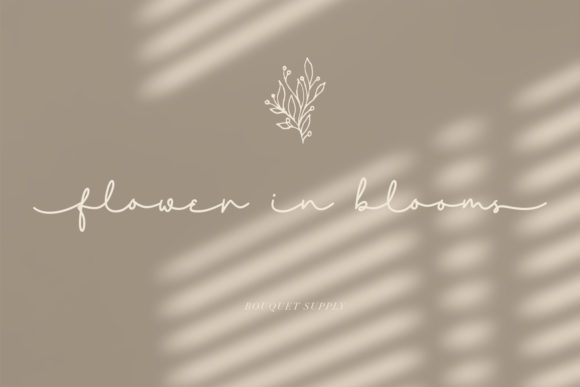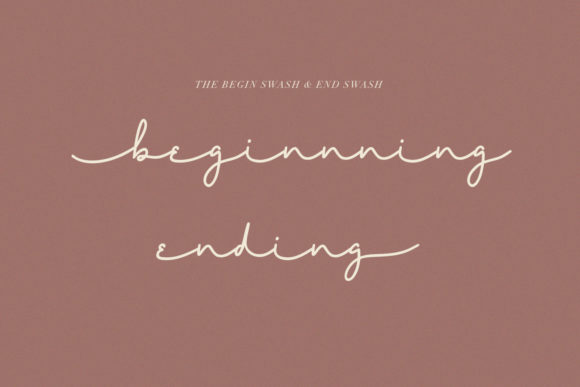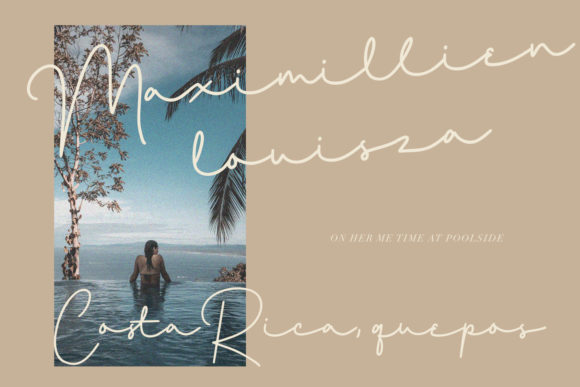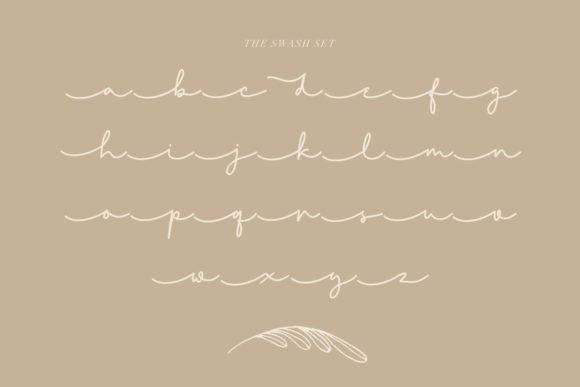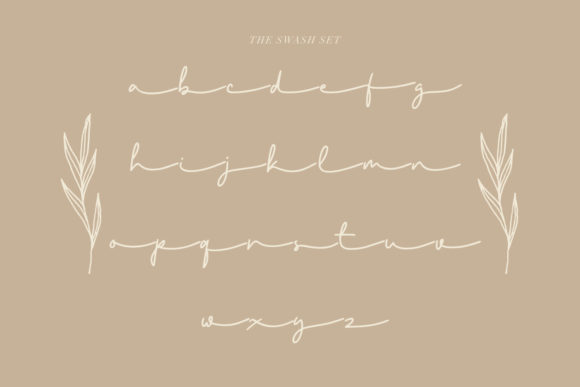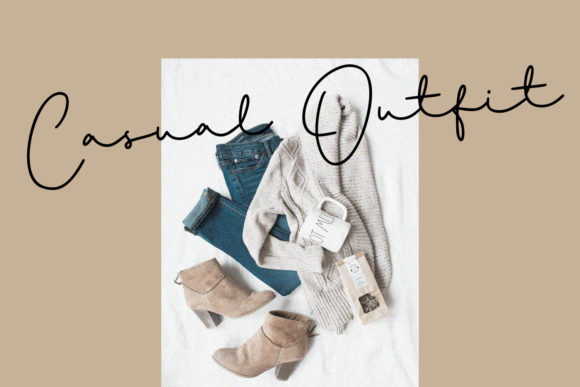
Introduction to Mirabille Font
As a designer, there’s nothing quite like the thrill of discovering a new font that perfectly captures the essence of your creative vision. For me, that moment came when I stumbled upon the exquisite Mirabille Font. Its delicate, flowing script is nothing short of enchanting, making it an instant favorite for any design project that requires a touch of elegance.
Whether you’re crafting wedding invitations, thank you cards, or logos, the Mirabille Font is a valuable resource that will elevate your design to new heights. With its high-quality design and versatility, it’s no wonder why designers from all over the world are flocking to this free download. From transparent backgrounds to custom designs, the Mirabille Font is the perfect companion for any creative project.
As a design resource, the Mirabille Font offers endless possibilities for designers looking to add a personal touch to their work. With its stunning appearance and seamless integration, it’s no wonder why designers are falling in love with this beautiful font.
Key Features of Mirabille Font
- High-quality design resource perfect for creative projects, with a unique and elegant style.
- Includes a transparent background, making it easy to use in various design applications.
- Comes in a single weight, ideal for projects where a simple and clean font is required.
- Suitable for use in a variety of design applications, including logos, typography, and creative projects.
Honest Review: Mirabille Font
I recently stumbled upon the Mirabille Font while searching for a free design resource for a creative project. I was immediately drawn to its elegant and refined aesthetic, making it perfect for various design applications.
Here are some features that stood out to me:
- ✨ High-quality design with precise lines and subtle texture
- ✨ Suitable for both digital and print projects, including logos, business cards, and signage
- ⚠️ Limited character set, which may not be ideal for extensive text-based projects
- ⚠️ Transparent background, which can make it challenging to use in certain design scenarios
Overall, I’m impressed with the Mirabille Font. Its unique design and high-quality construction make it a valuable addition to any designer’s toolkit. While it may have some limitations, it’s an excellent choice for creative projects that require a touch of elegance and sophistication.
For the best results, use Mirabille Font in combination with a transparent background. This will allow the font to stand out and add a touch of elegance to your design. Additionally, experiment with different font sizes and styles to find the perfect fit for your creative project.
Common Use Cases for Mirabille Font
Mirabille Font is perfect for a variety of creative projects, including branding, marketing materials, and editorial designs. Its high-quality design and transparent background make it an ideal choice for designers who want to add a touch of sophistication to their work.